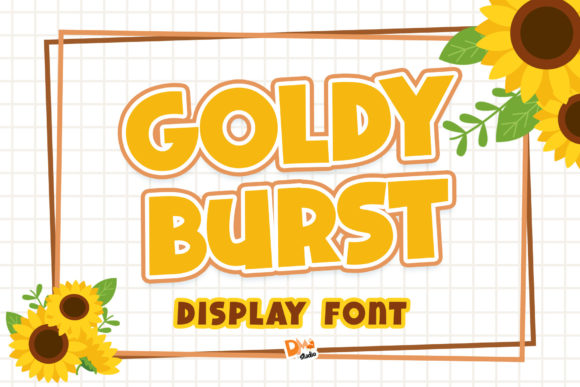
Journey into the realm of captivating visual aesthetics with Goldy Burst, the display font that transforms your creative endeavors into mesmerizing masterpieces. Its bold and thick letterforms command attention, demanding a presence that resonates with timeless elegance and contemporary flair.
Goldy Burst is more than just a font; it's an artistic expression that unlocks the door to a world of limitless possibilities. Visualize your brand's identity soaring to new heights, emboldened by the confident strokes of Goldy Burst. Its inherent versatility shines in logos, t-shirt designs, creative products, and beyond, effortlessly adapting to diverse contexts like a chameleon.
Picture your designs adorned with Goldy Burst's presence, captivating audiences with its unmistakable charm. Let your imagination run wild as you explore the infinite applications of this extraordinary font. Witness the transformation of ordinary words into striking statements, captivating headlines, and unforgettable designs.
Goldy Burst's versatility extends beyond its visual appeal; it's a font that speaks to the soul. Whether you seek to inspire, provoke thought, or simply spread joy, Goldy Burst serves as your trusted companion, amplifying your message with its expressive flair. Invite your audience on a visual adventure, where every letter carries a story, every word paints a picture, and every design captivates the senses.
With Goldy Burst at your creative fingertips, you gain access to a font that transcends the boundaries of ordinary typography. It's a font that empowers you to make a statement, to leave a lasting impression, and to create designs that resonate with your audience on a profound level.
Unleash the power of Goldy Burst today and embark on a creative odyssey where every project becomes a masterpiece, and every design tells a captivating tale. Let the world witness the brilliance of your artistic vision, amplified by the sheer brilliance of Goldy Burst.